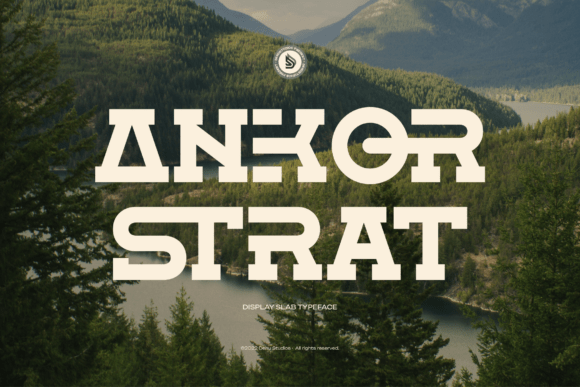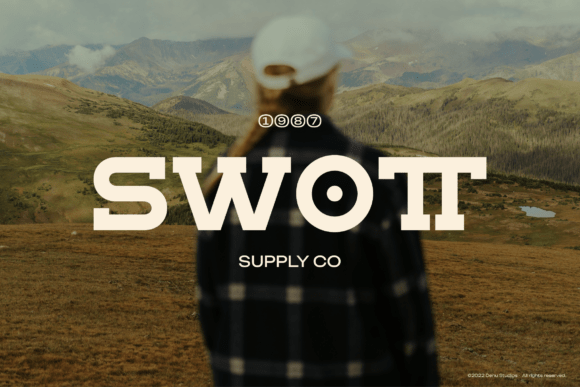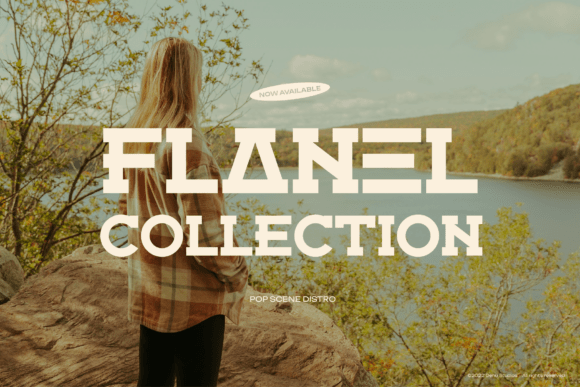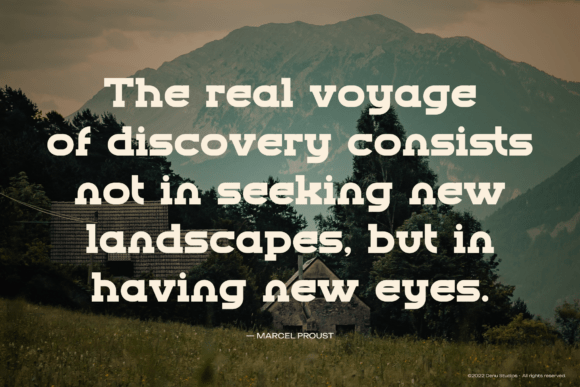
Angkor Strat Font: Bold Slab Serif Font for Outdoor & Adventure Branding
About the Angkor Strat Font
Make a bold statement with Angkor Strat Font, a powerful and memorable font. Ankor Strat is a bold and rugged display slab serif font with strong geometric shapes and industrial-inspired styling. Designed to command attention, this typeface is ideal for outdoor brands, sports headlines, posters, and adventure-themed projects that need a solid, masculine presence with a touch of modern grit.
Angkor Strat excels in large-scale applications such as headlines, posters, and branding projects where a powerful, assertive presence is desired. Its strong geometric forms make it particularly effective for conveying strength and reliability. Avoid using it for body text or UI elements; its bold weight and slab serifs are not optimized for readability in smaller sizes or continuous text.
This font’s core personality is bold and rugged, projecting a sense of modern masculinity and industrial strength. It’s perfect for brands associated with adventure, construction, outdoor gear, or anything requiring a tough, dependable image.
Pairing Angkor Strat with a clean sans-serif like Open Sans for body copy provides a strong contrast and enhances readability. For a more sophisticated feel, consider pairing it with a delicate serif like Lora, which softens the overall impression while maintaining visual interest.
Angkor Strat Font Usage Examples
Angkor Strat Font Example